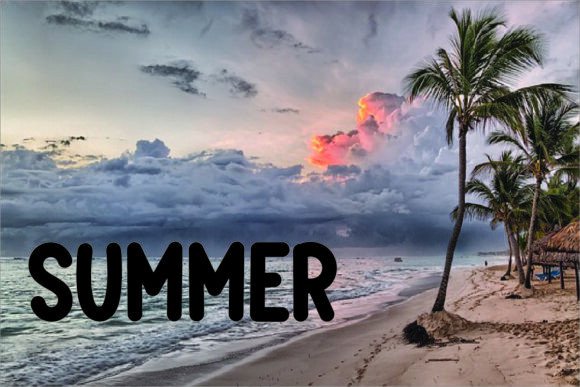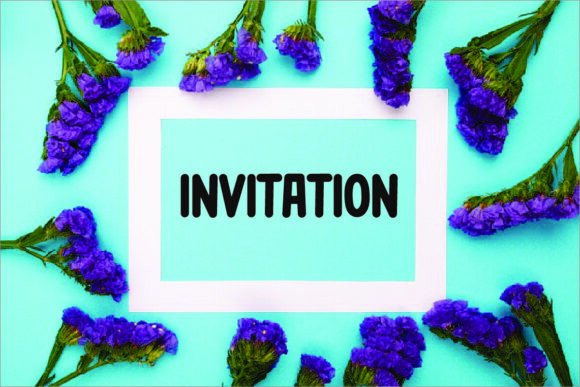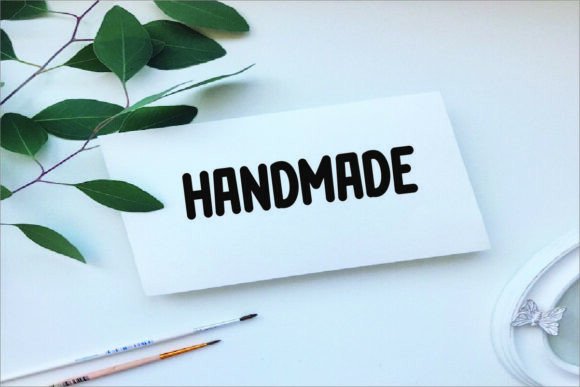
Introduction to Blackgold Font
Blackgold is a fun, handwritten font with all caps letters.
It’s perfect for holiday cards and festive decorations, giving a personal touch to your Christmas messages .
Key Features of Blackgold Font
Why Choose Blackgold Font?
Blackgold Font offers exceptional quality and versatility, making it a valuable addition to your design toolkit. Whether you’re creating for personal projects or commercial use, Blackgold Font delivers professional results.